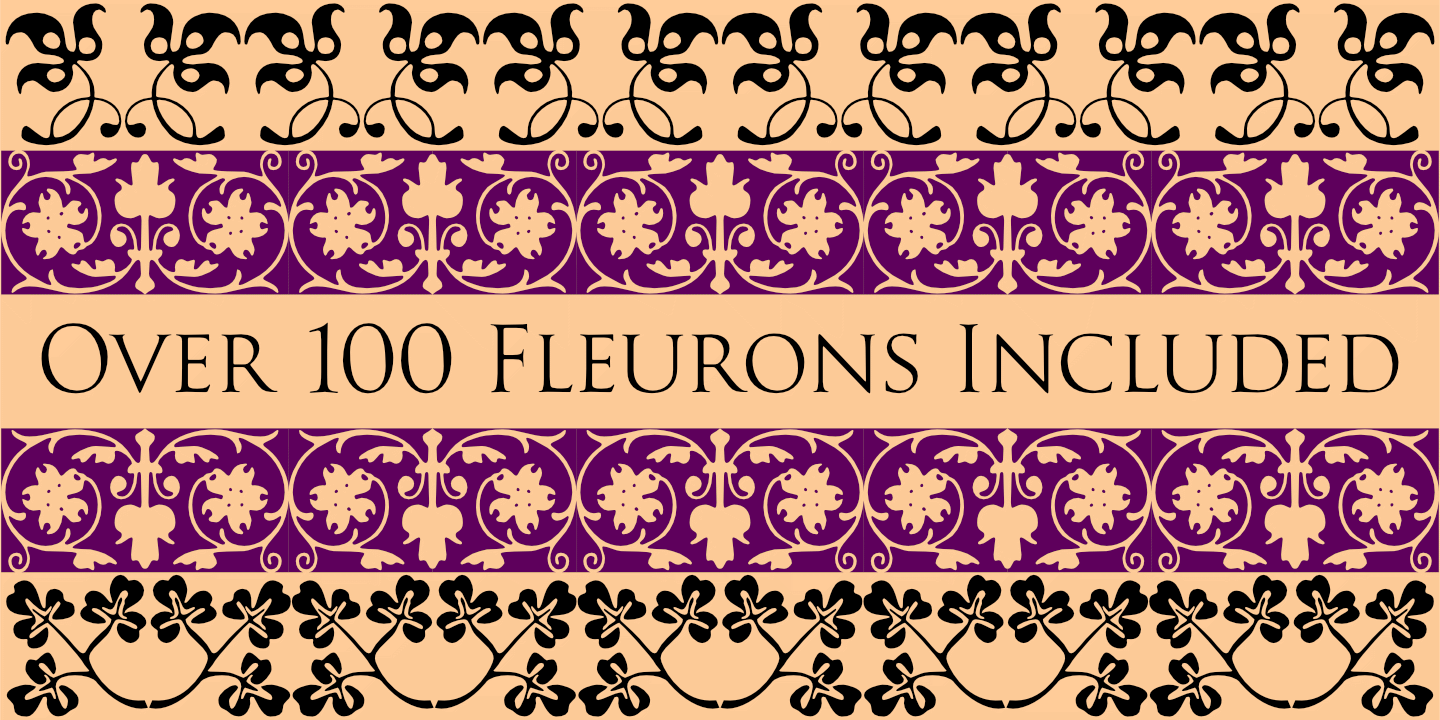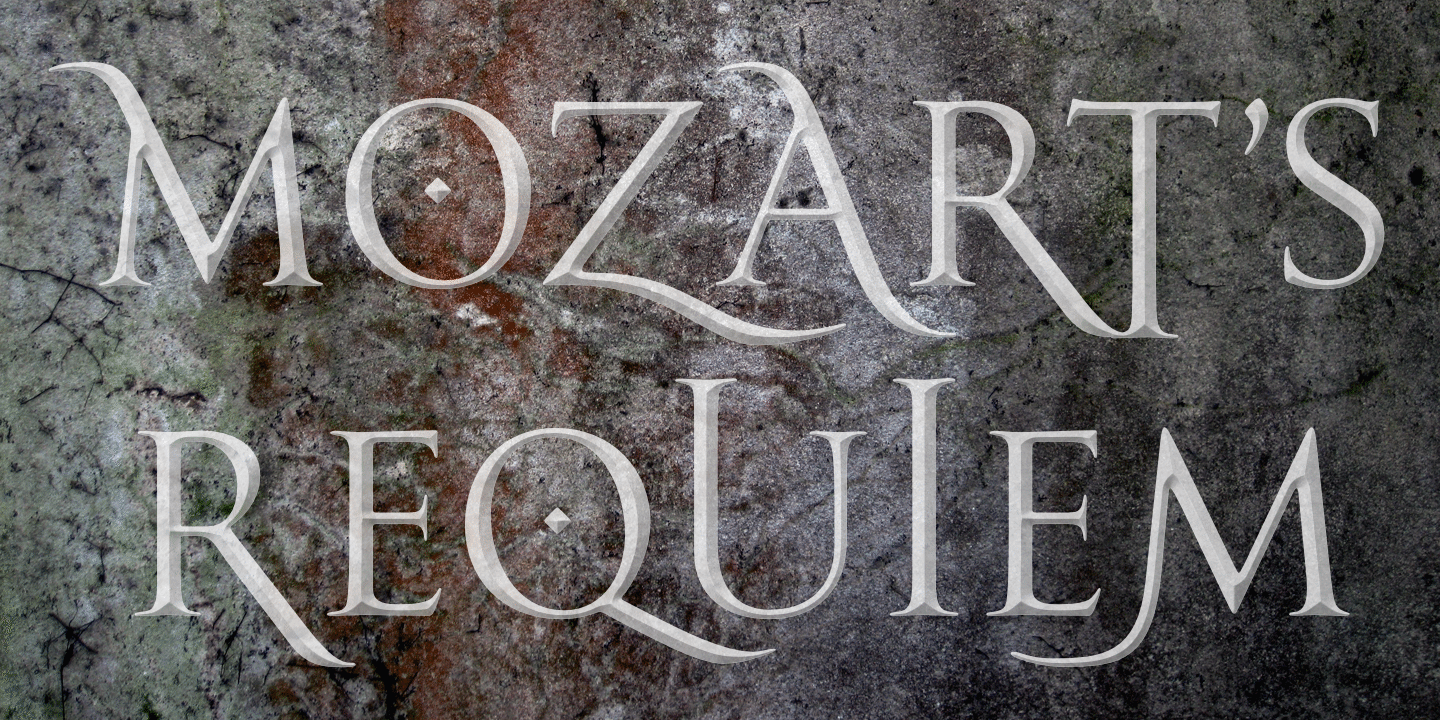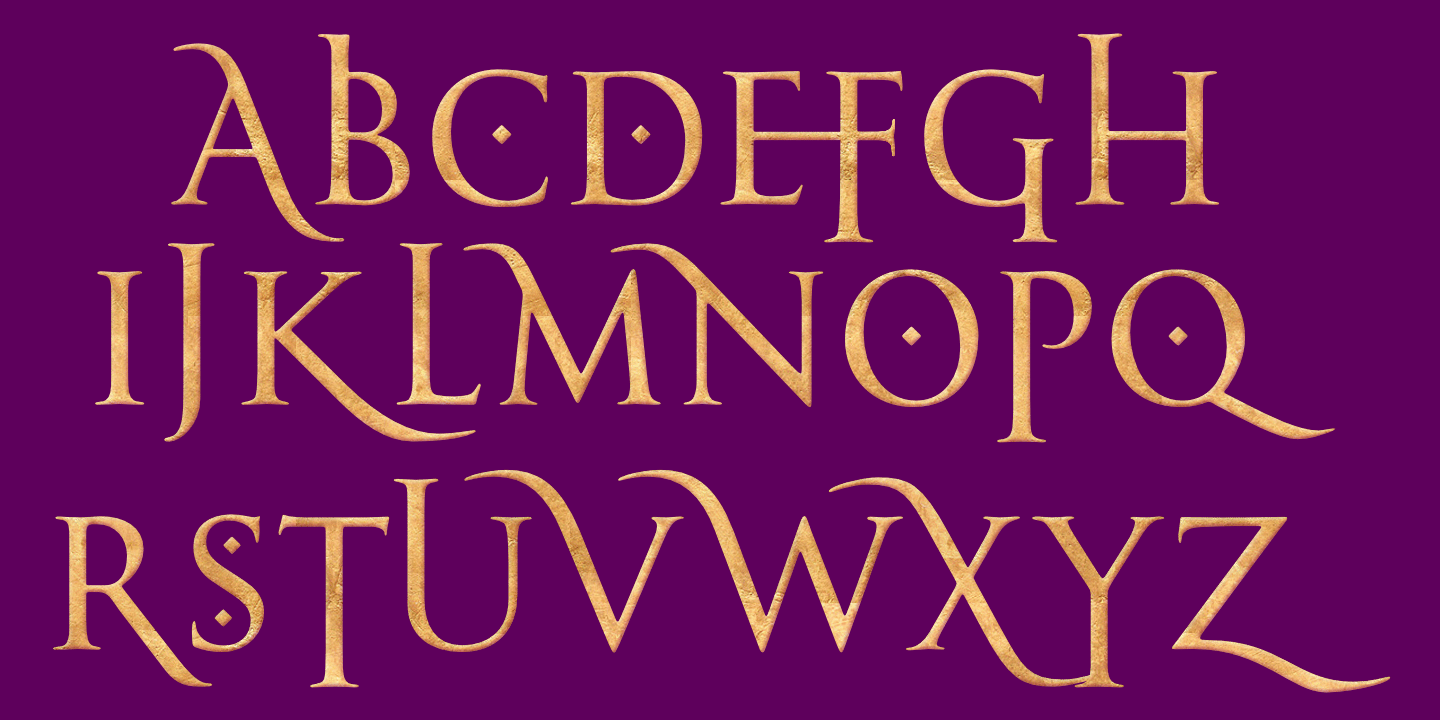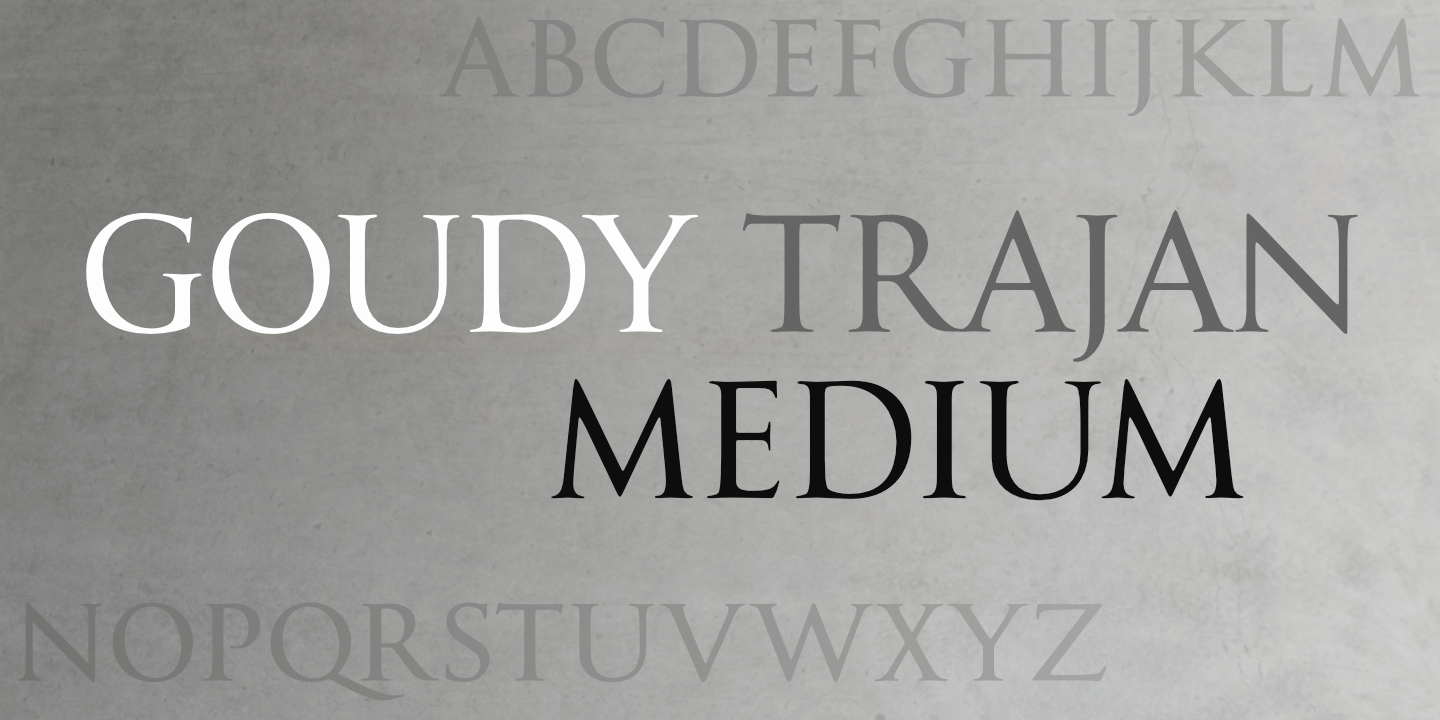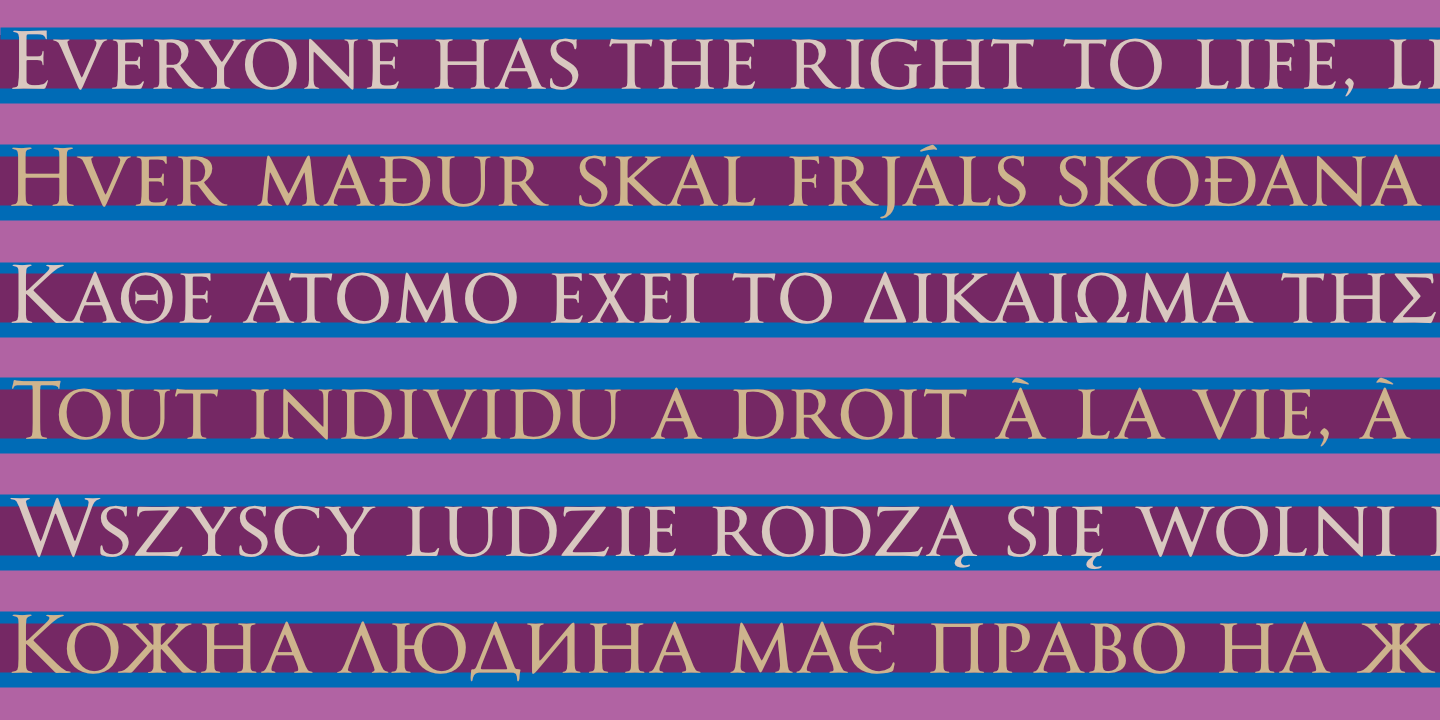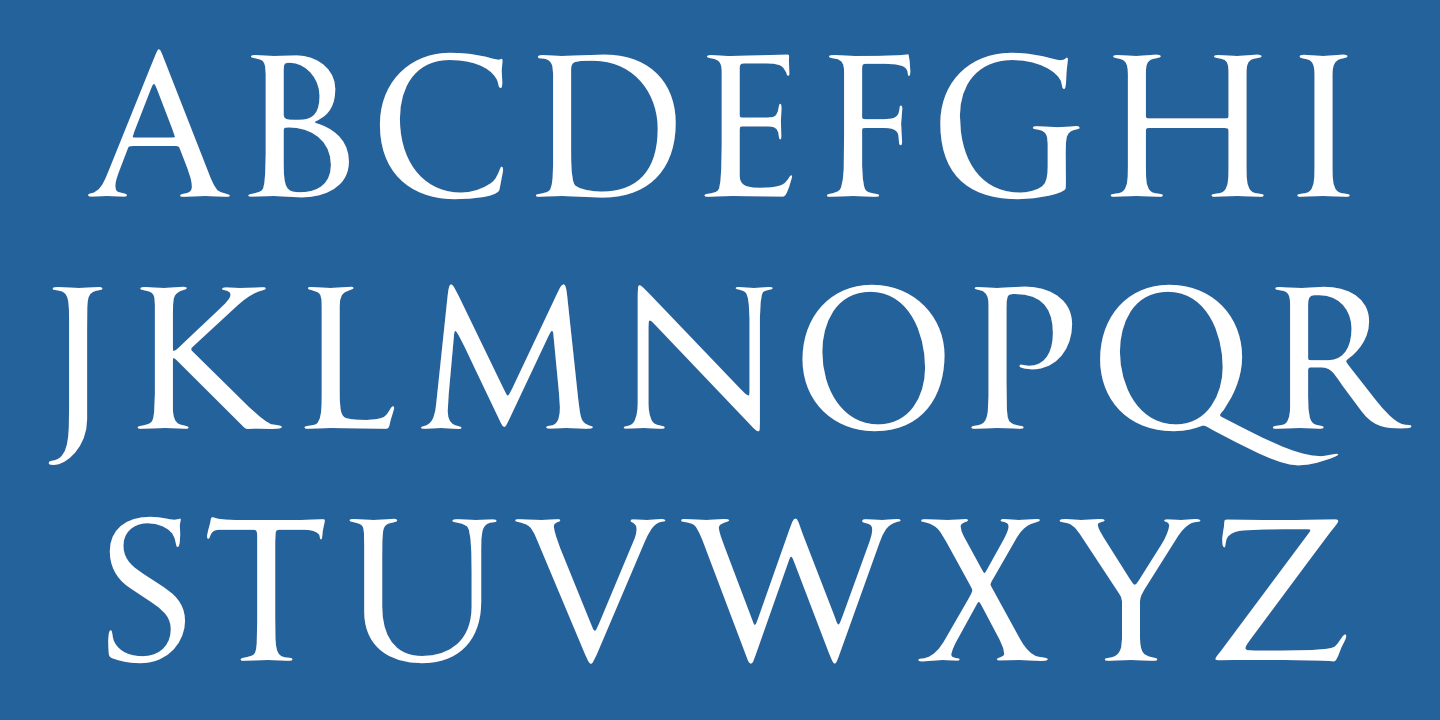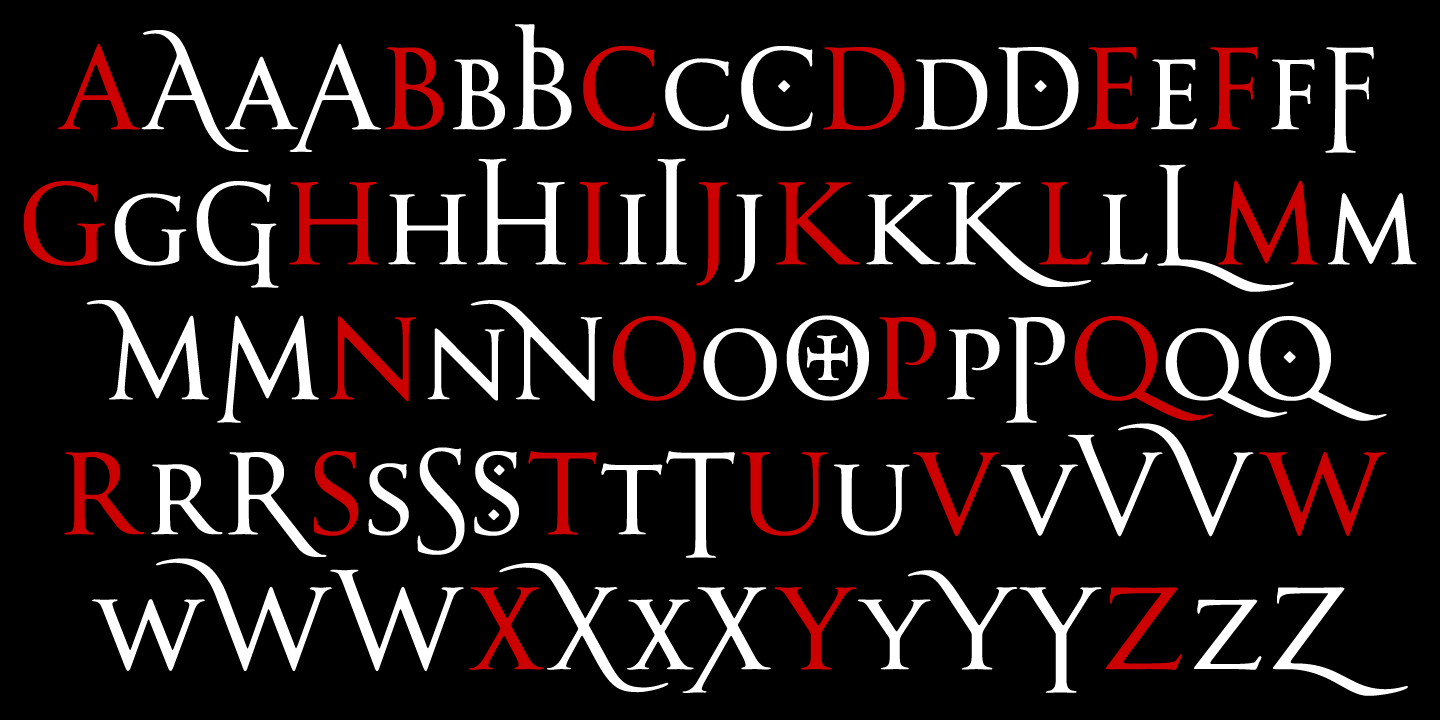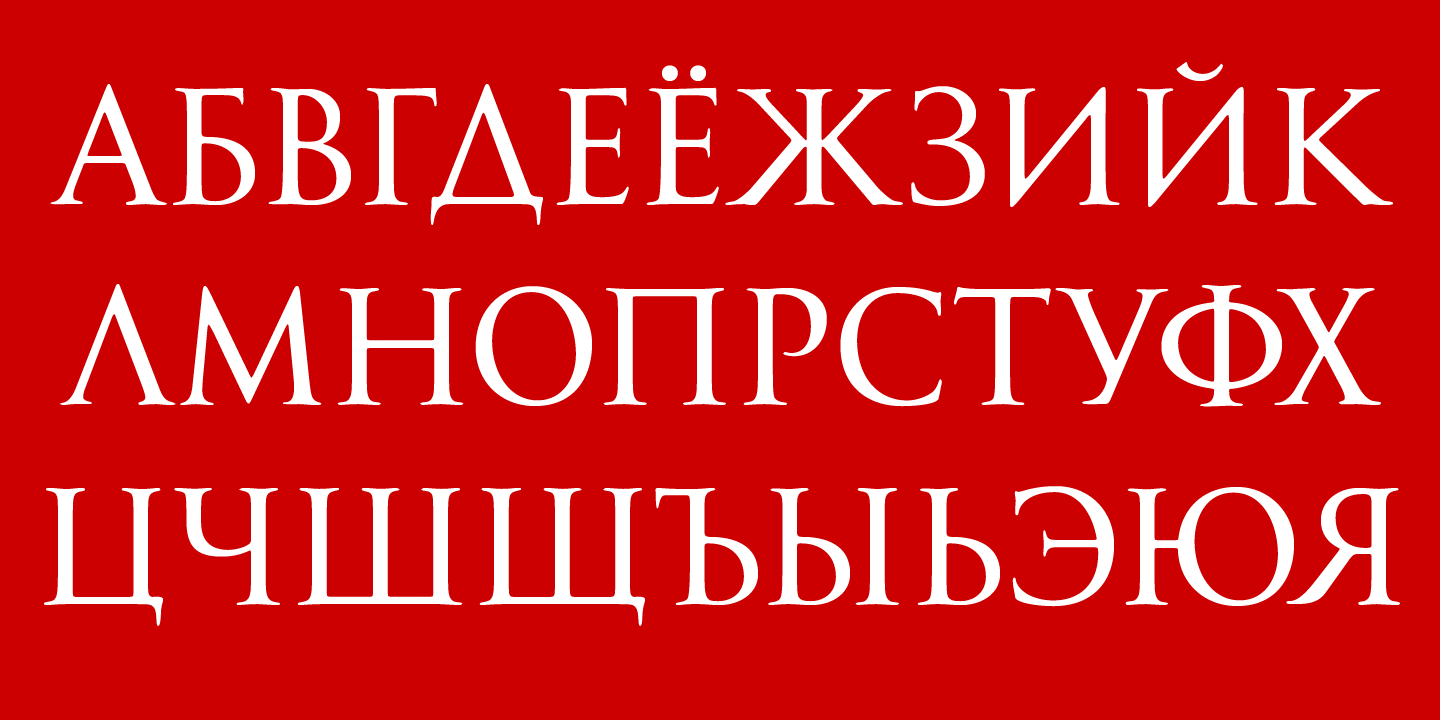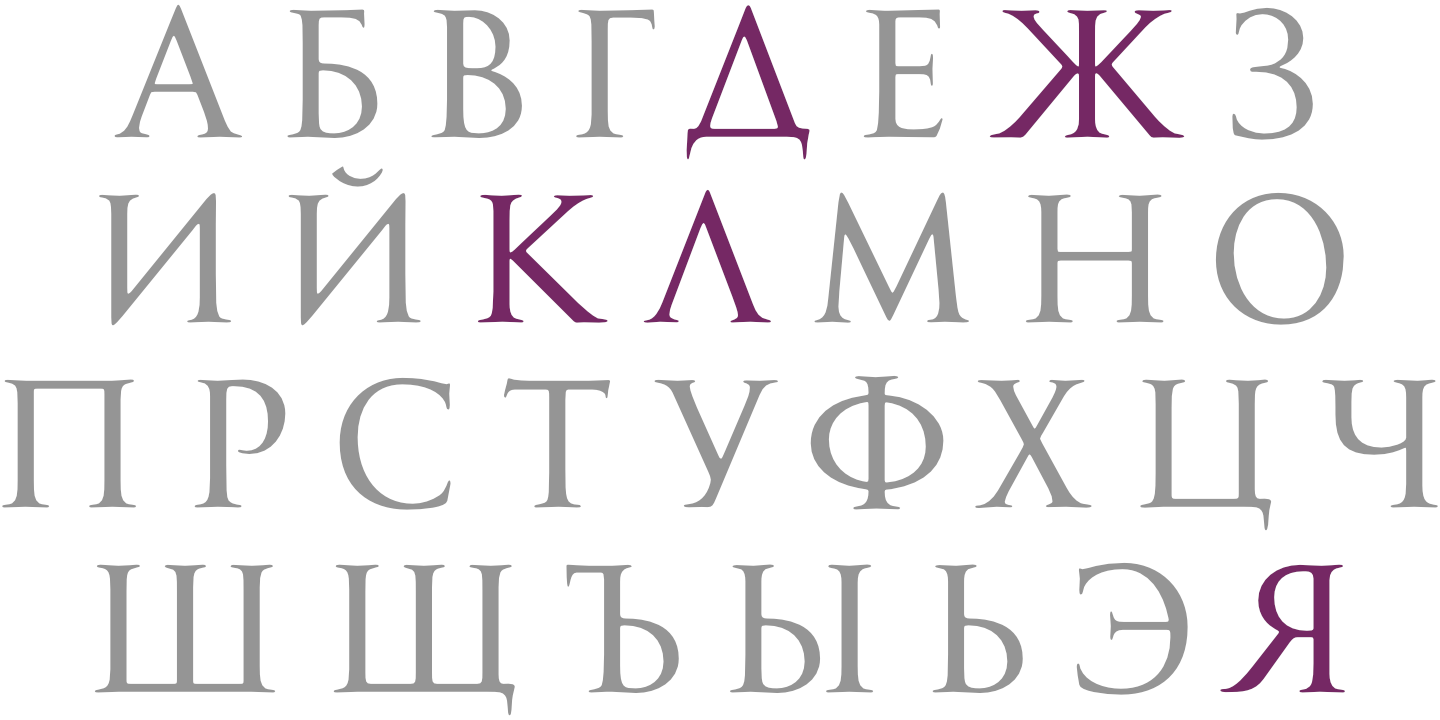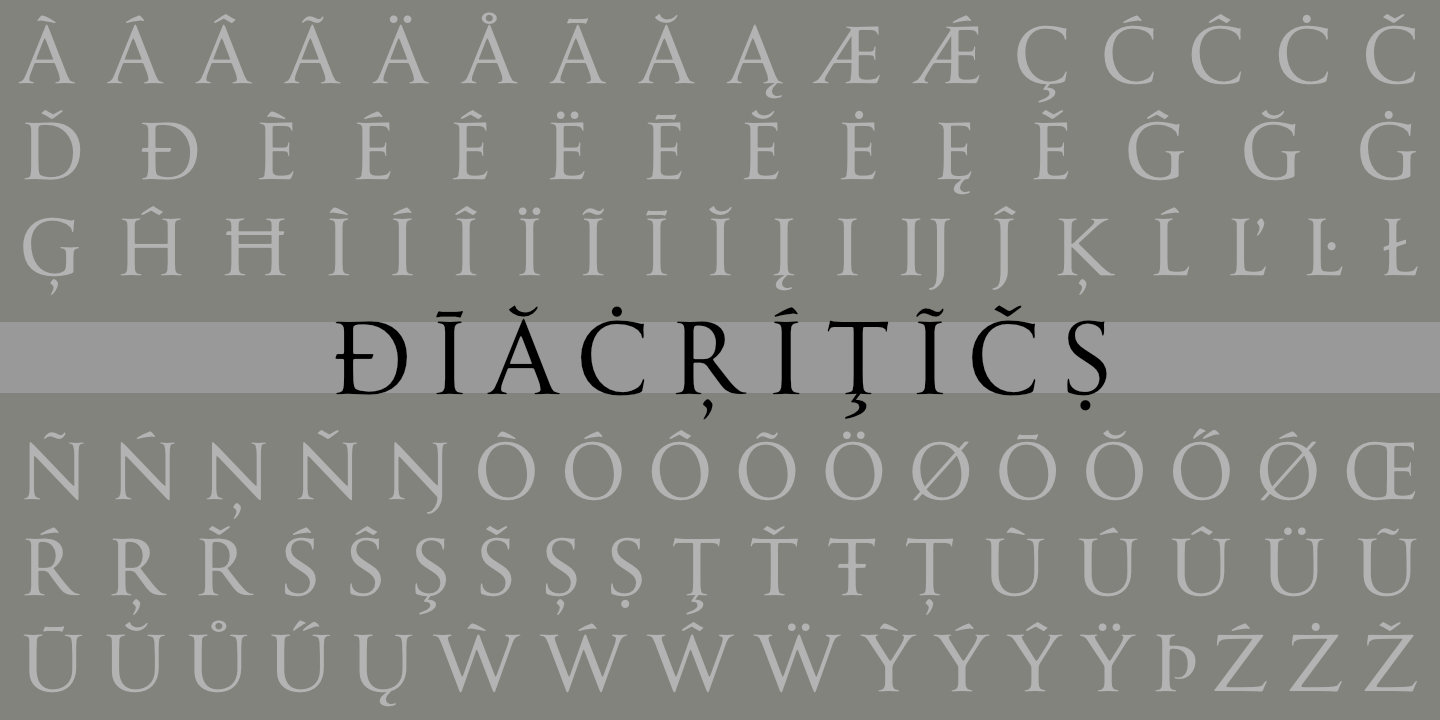
Goudy Trajan Pro Medium: Default uppercase; small caps also included in lowercase position. See Glyphs for details.
Alternates (small caps, swashes, etc.); default caps in red. Centered small caps not shown. See Glyphs for details.
Goudy Trajan Pro Medium supports most languages that use the Cyrillic alphabet. See Glyphs for details.
Goudy Trajan Pro Medium supports modern (monotonic) Greek. See Glyphs for details.
Goudy Trajan Pro Medium: Numerals, punctuation, currency symbols, and a small sample of fleurons.
Goudy Trajan Medium includes over 150 vintage fleurons.
Goudy Trajan Pro Medium supports most European languages. See above and below.
Goudy Trajan Medium uppercase (red) with small caps (using lowercase letters).